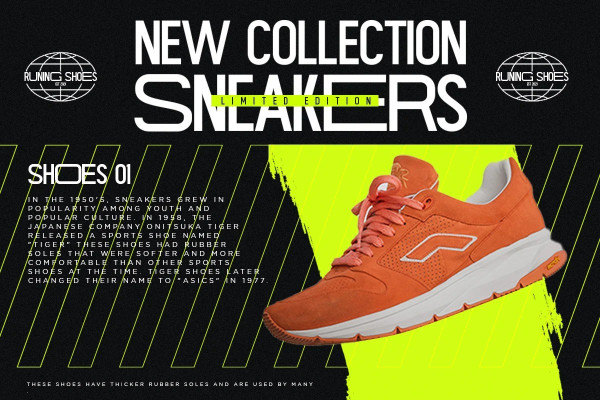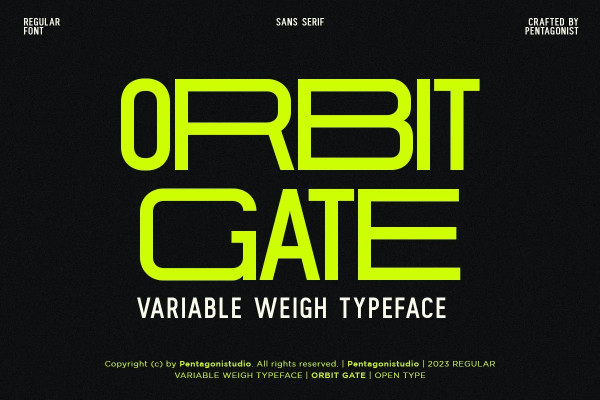
Orbit Gate Font
Orbit Gate Font Is Modern Display Sans Serif Typeface with Variable Style Condensed and Extended. It can easily be matched to an incredibly large set of projects, so add it to your creative ideas and notice how it makes them stand out!